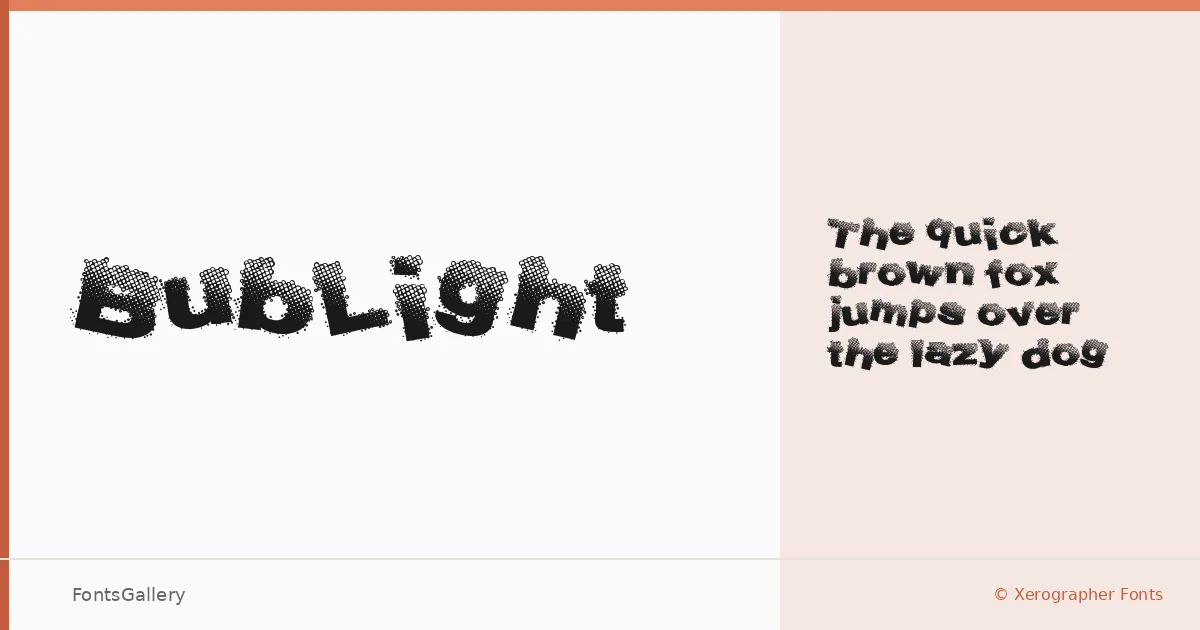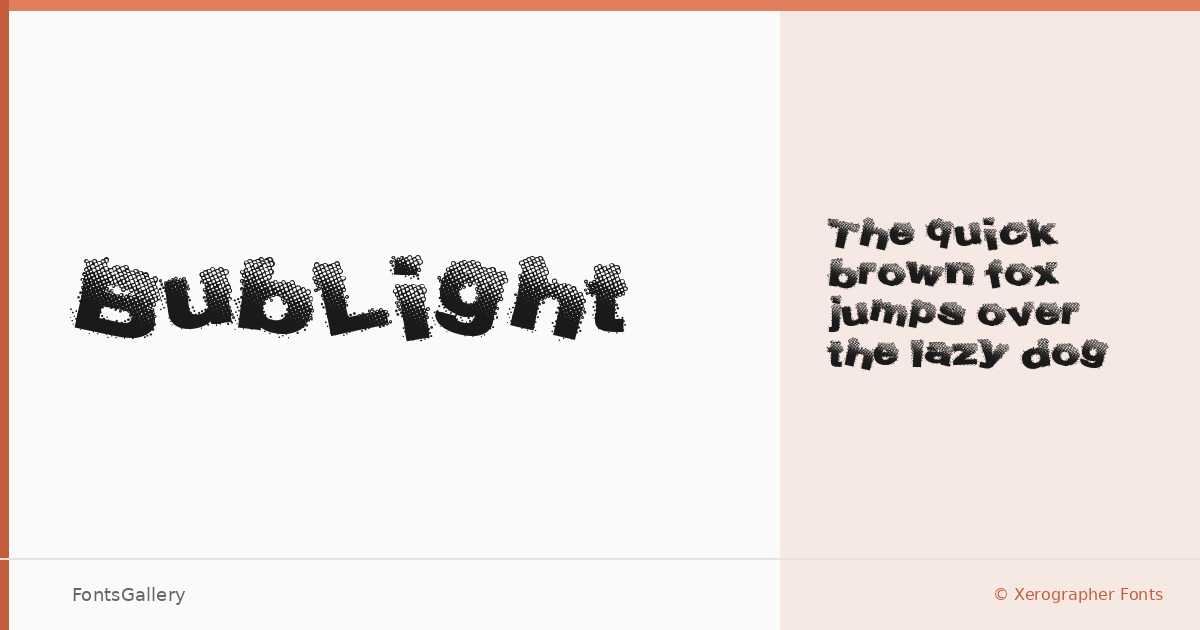
About BubLight Font
There is something immediately loose and hand-felt about the letterforms here — rounded, slightly irregular, carrying the kind of grunge energy that feels earned rather than applied as an effect. BubLight is a single-weight display face from Xerographer Fonts, created by Max Infeld.
It sits squarely in the display category, with a mood that swings between whimsical and bold — playful enough for a children's book cover, rough enough for a poster that wants some personality. The family ships as a single Regular cut in TTF format, which keeps things simple: one voice, used well or not at all. The grunge texture in the strokes gives it a tactile quality that clean geometric faces cannot replicate.
It earns its keep in branding work that wants to feel approachable and handmade, on T-shirt designs, social media graphics, and anywhere a headline needs character over formality. Pair it against something clean and structural — Helvetica or Josefin Sans will keep it grounded, while Canela, Asap, or ABC Arizona can add their own editorial texture alongside it in more layered compositions.